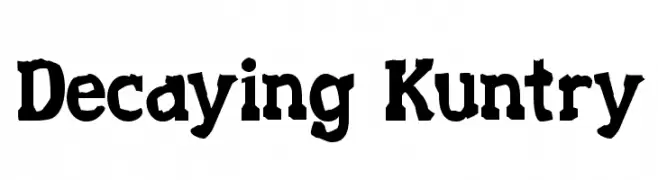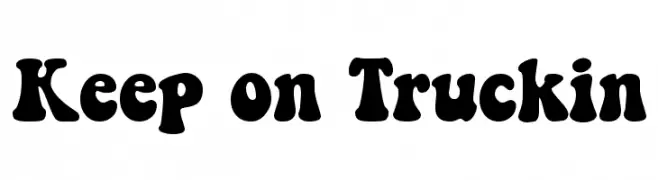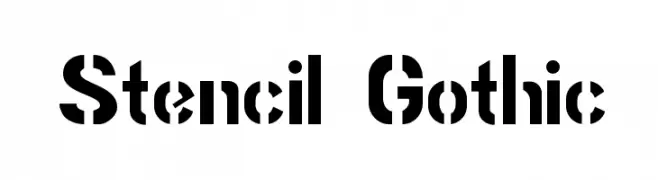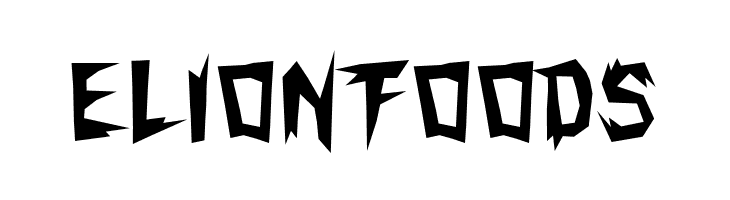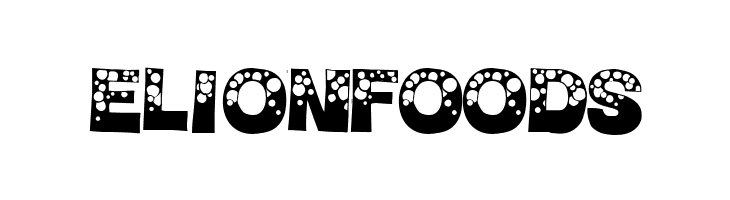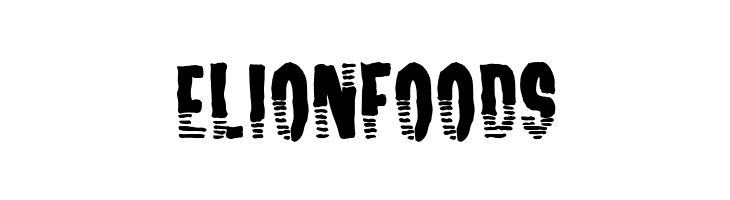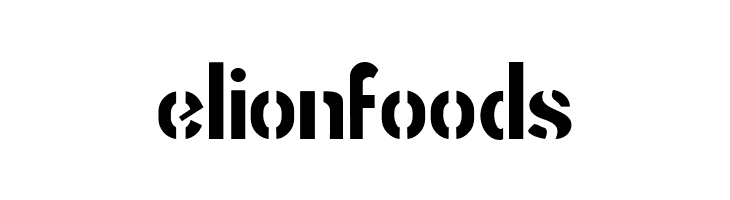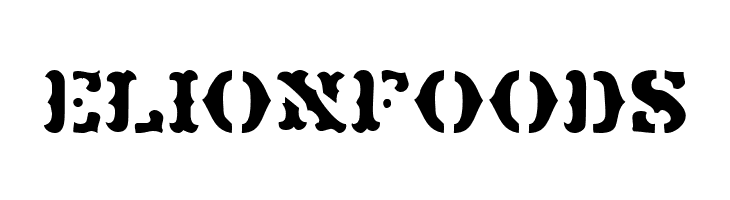
A bold, jagged font with sharp, angular edges for a dynamic look.
A bold, retro font with playful, exaggerated letterforms and a 60s-70s vibe.
A rugged, distressed font with a rustic, hand-crafted feel.
A decorative font made entirely of star shapes, perfect for festive and playful designs.
A bold, playful font with bubble-like decorations inside each character.
A bold, distressed font with a static-like texture, perfect for impactful designs.
A bold, stencil-style font with geometric uniformity and high legibility.